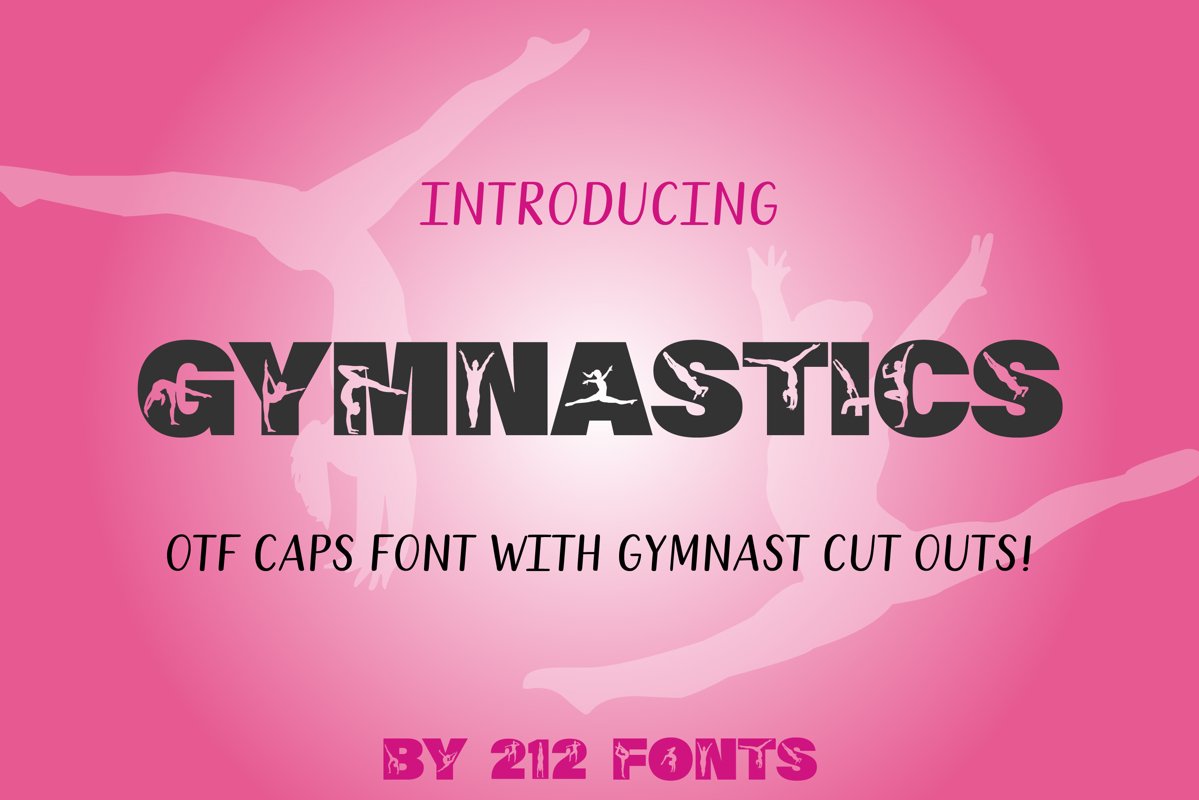
212 Gymnastics Caps Display Font Gymnast Alphabet OTF
212 Gymnastics
212 Gymnastics is a fun, installable caps font featuring 200+ glyphs made up of all letters with Gymnasts punched out!
This font makes great graphics, tshirt art, decals, monogram art, you name it!